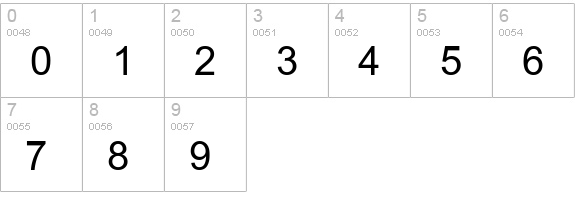
Dixon font is a versatile and modern typeface that exudes elegance and sophistication. With its clean lines and sleek design, Dixon font is perfect for a wide range of design projects, from branding to editorial layouts. This font features a unique blend of classic and contemporary elements, making it suitable for both traditional and modern aesthetics. What makes Dixon font even more appealing is that it is available for free download at FontsMarket.com. This means that you can easily access this stylish font and use it in your projects without any cost. Whether you are a designer looking to add a touch of refinement to your work or a business owner aiming to enhance your brand's identity, Dixon font is a fantastic choice that won't break the bank. Download Dixon font today and elevate your design projects with its timeless appeal.